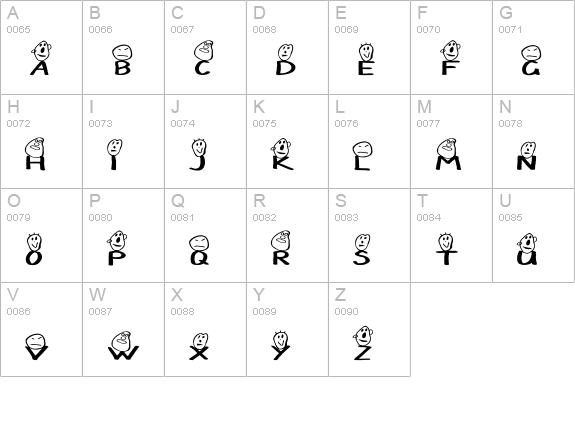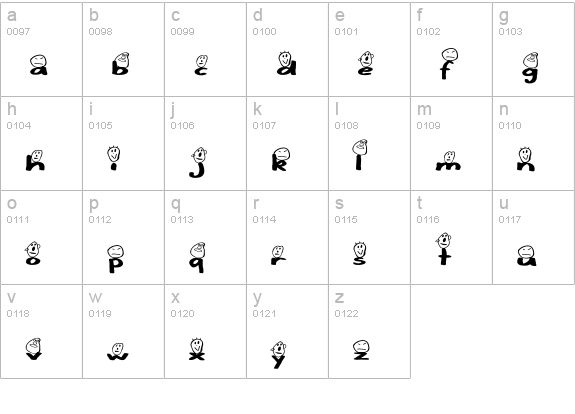
Amber's Family Font Details
Amber's Family font is a beautiful typeface that exudes elegance and sophistication. With its classic yet modern design, this font is perfect for a wide range of projects, from branding to invitations to web design. The family includes a variety of weights and styles, allowing you to create stunning typography with ease. What's even better is that Amber's Family font is available for free download at FontsMarket.com. This means you can easily add this versatile font to your collection without any cost. Don't miss out on the opportunity to enhance your designs with the timeless appeal of Amber's Family font. Download it today and elevate your projects to the next level!